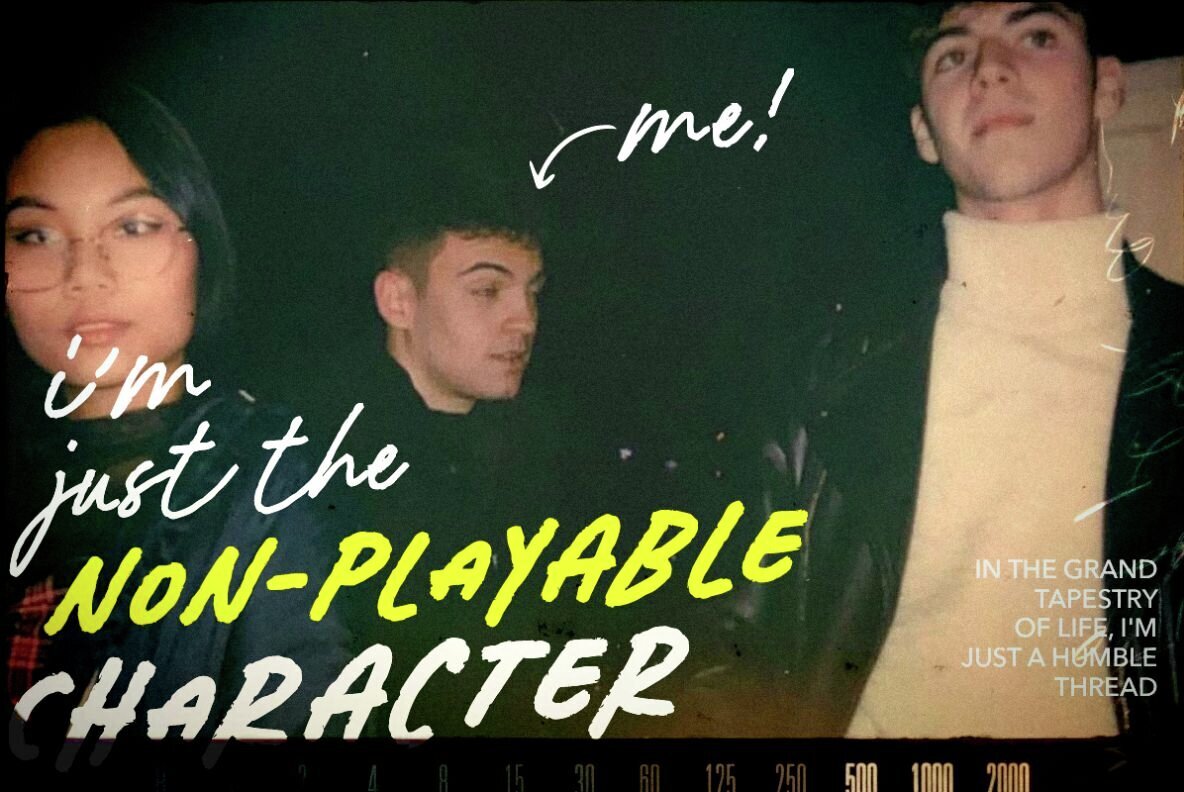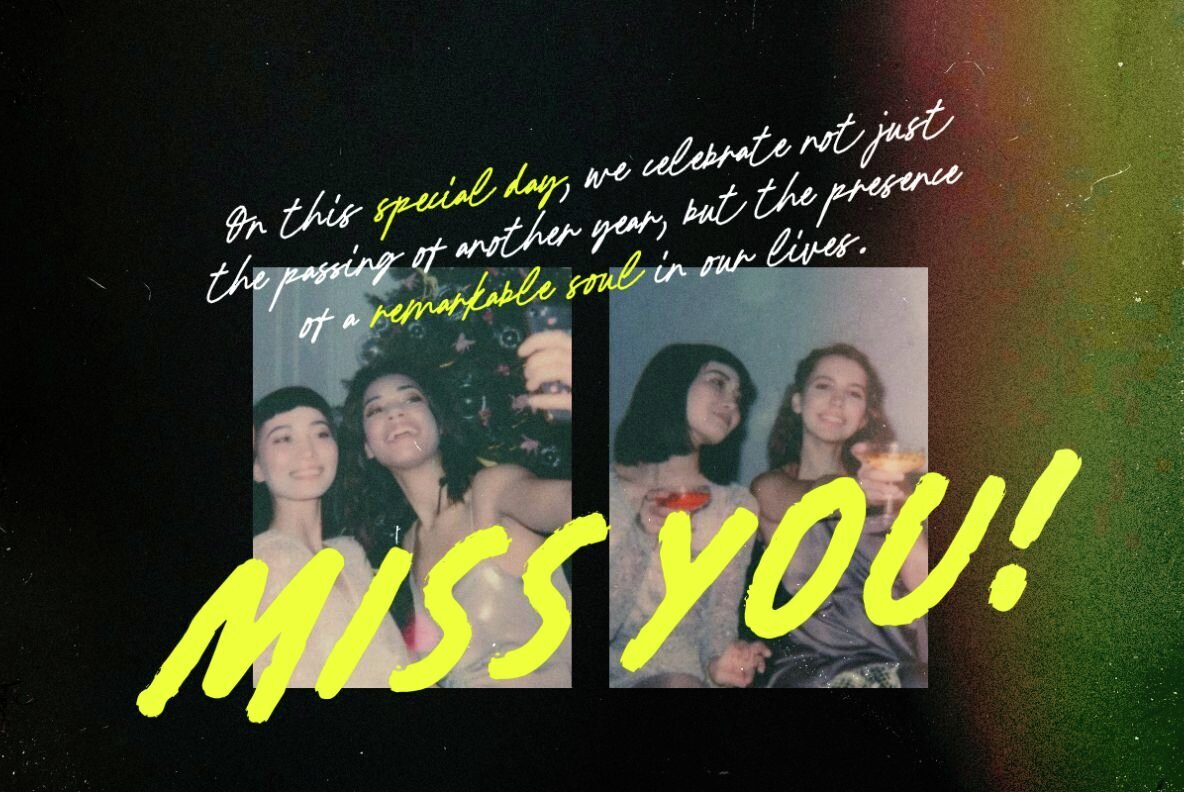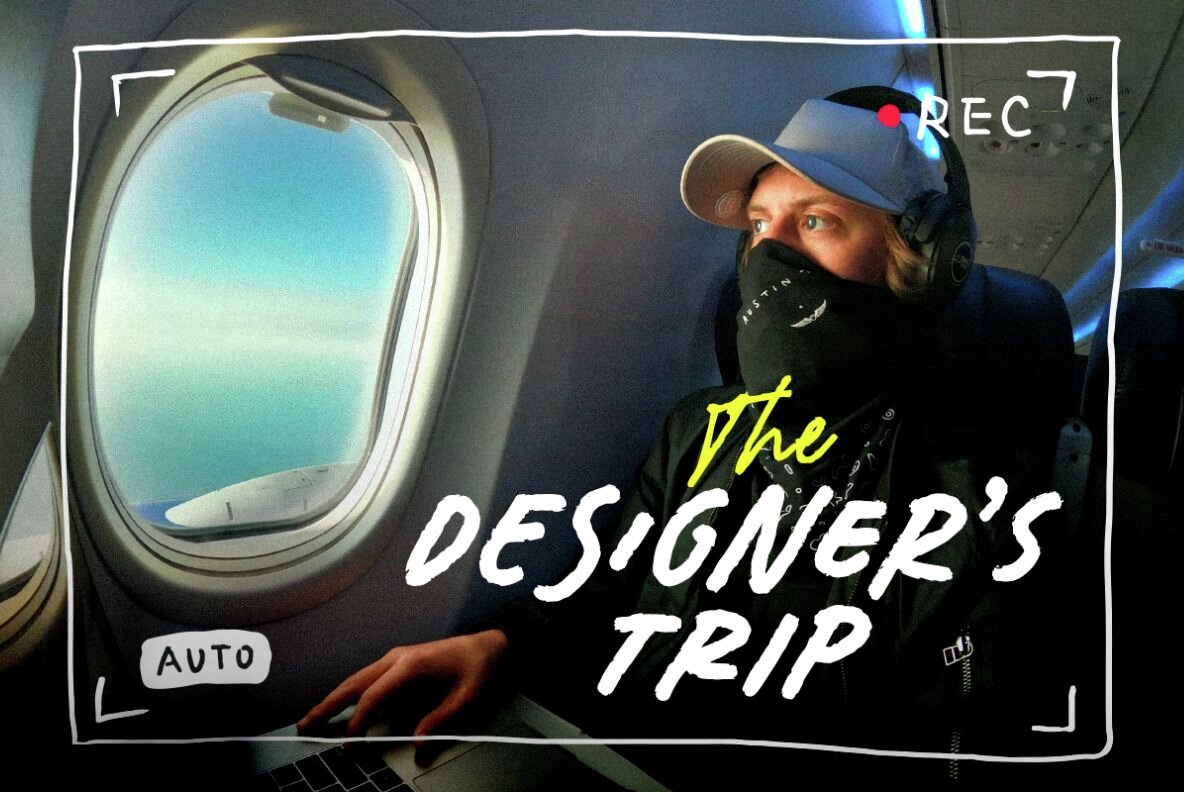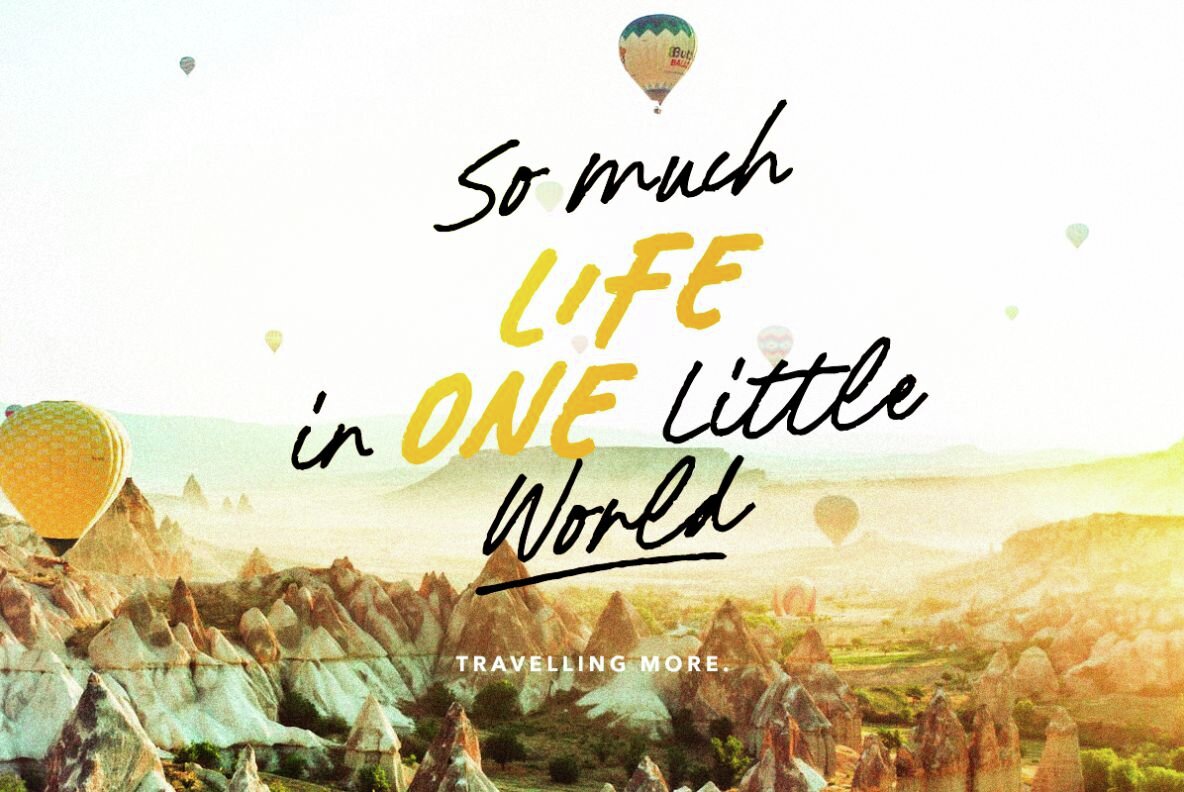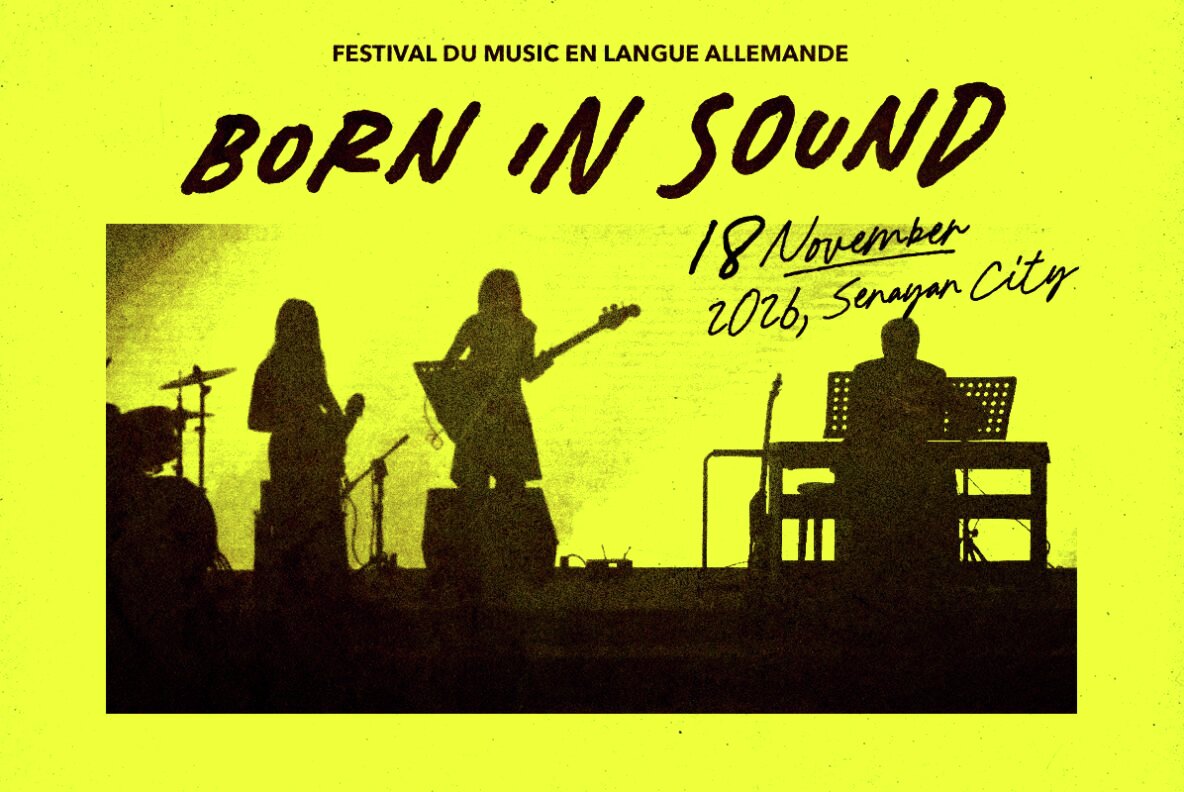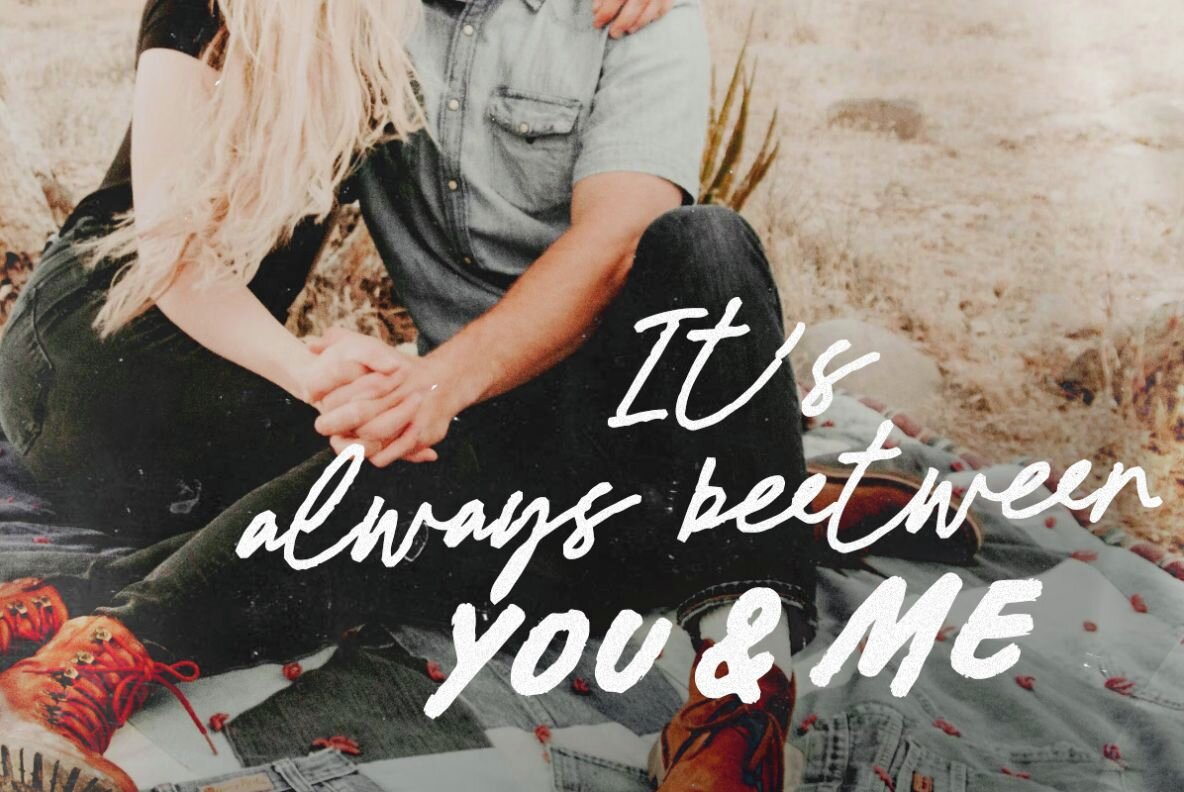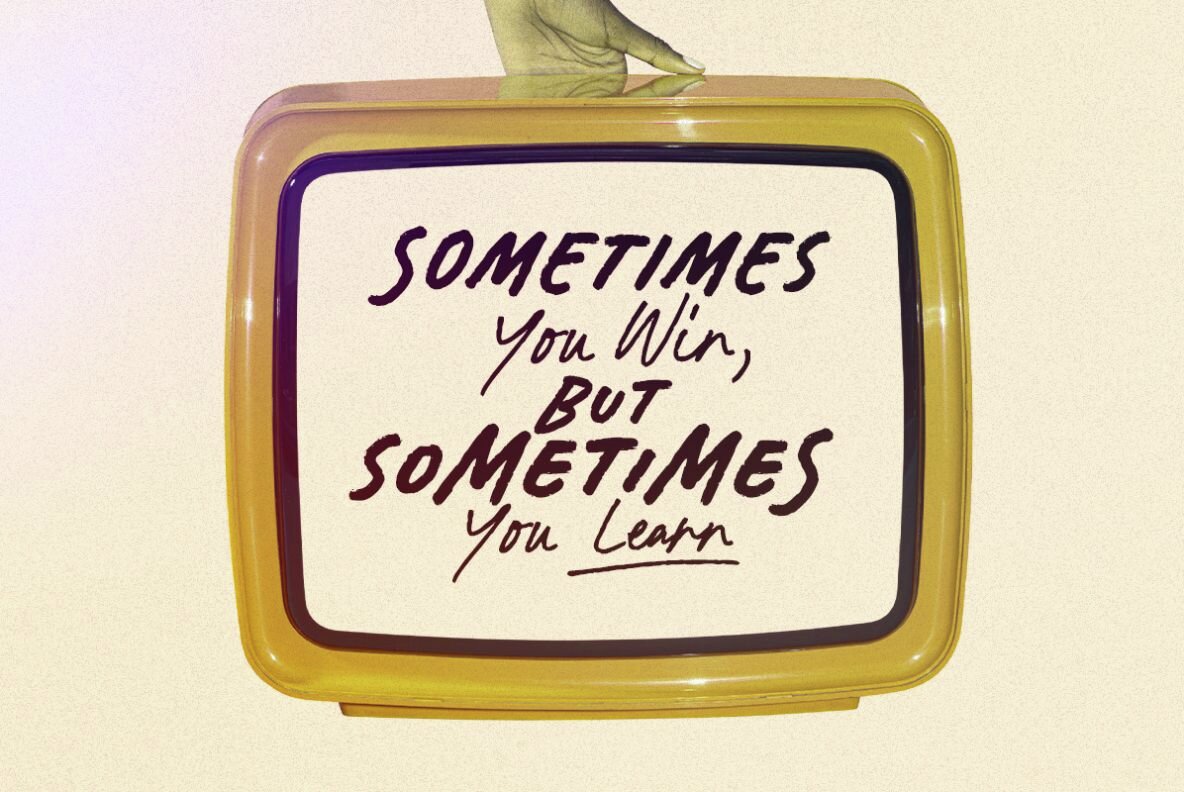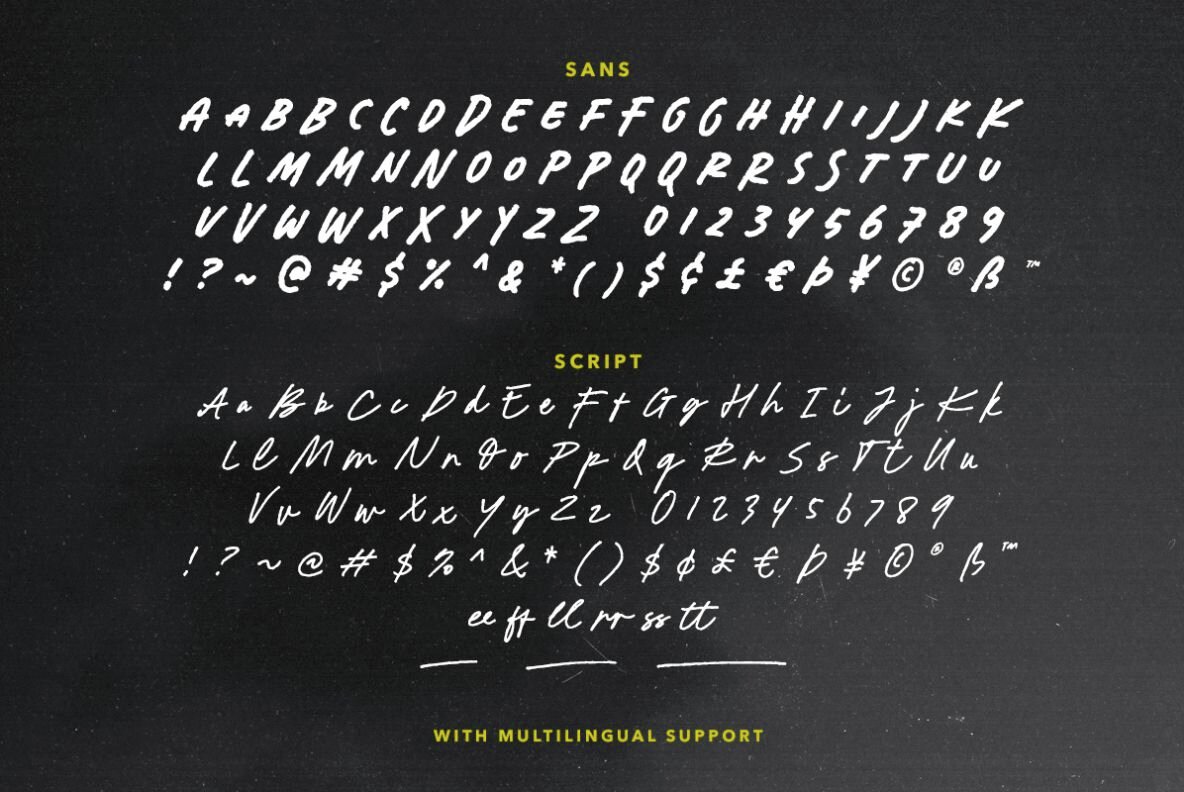
Dirty Stroke Font
Dirty Stroke Sans
Dirty Stroke Script
Dirty Stroke is an organic handwritten font duo featuring slightly rough edges that add a touch of authenticity to your designs. This package offers two distinct styles—a readable sans and a natural signature script, making it versatile for various creative needs. Whether you're designing quotes, posters, or other creative projects, this font provides a natural yet readable aesthetic.
Additionally, Dirty Stroke supports multiple languages, broadening its usability for diverse projects. Its unique blend of readability and rustic charm makes it an excellent choice for anyone looking to create engaging and accessible designs.